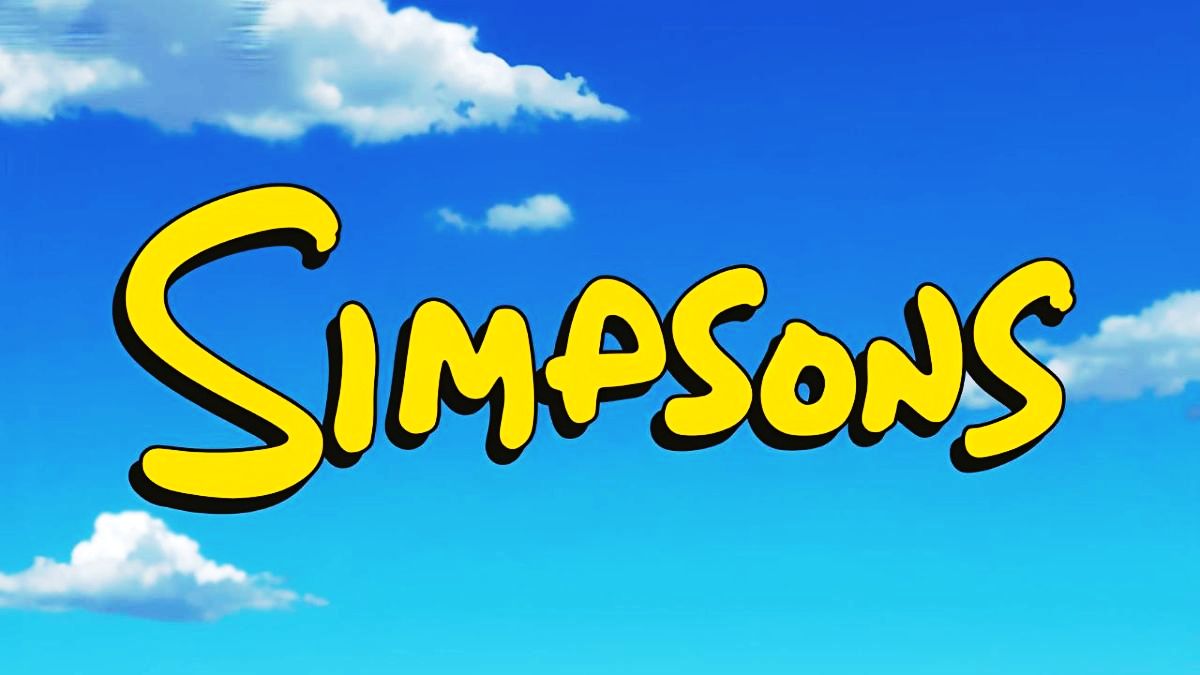
Get the authentic Simpsons font – the perfect Springfield typography for cartoon designs. Perfect for Simpsons fans and animation lovers.
Simpsons font captures the epic Springfield essence of cartoon adventures and family humor! This powerful typography brings authentic Simpsons character to your text designs. Our Simpsons Font Generator lets you create epic text using the authentic Simpsons font. Perfect for Springfield-themed designs, cartoon projects, and animated content.
Access the authentic Simpsons font for that perfect Springfield, cartoon typography experience.
🏙️ Springfield Customization
Customize your Simpsons text with cartoon colors, effects, and styles perfect for animation and Springfield designs.
🌆 Springfield Projects
Perfect for cartoon posters, fan art, Simpsons graphics, merchandise designs, and animated content.